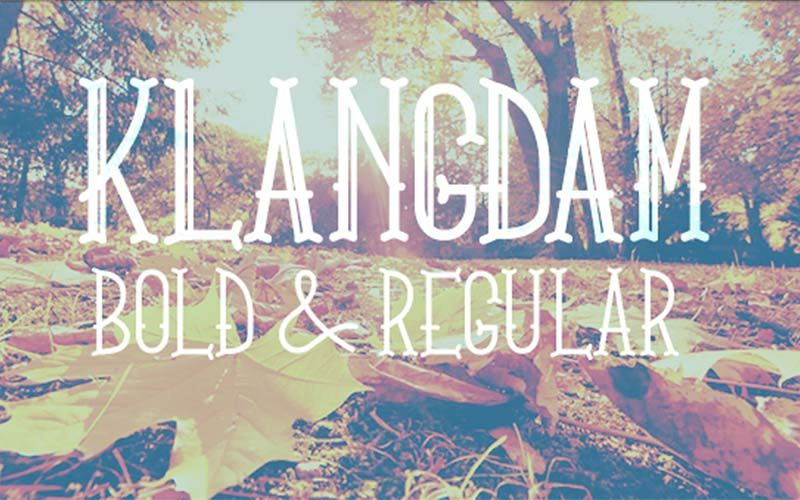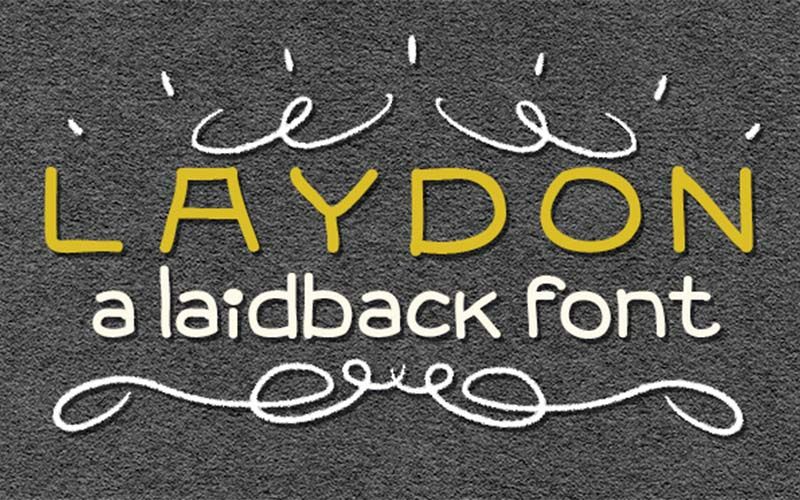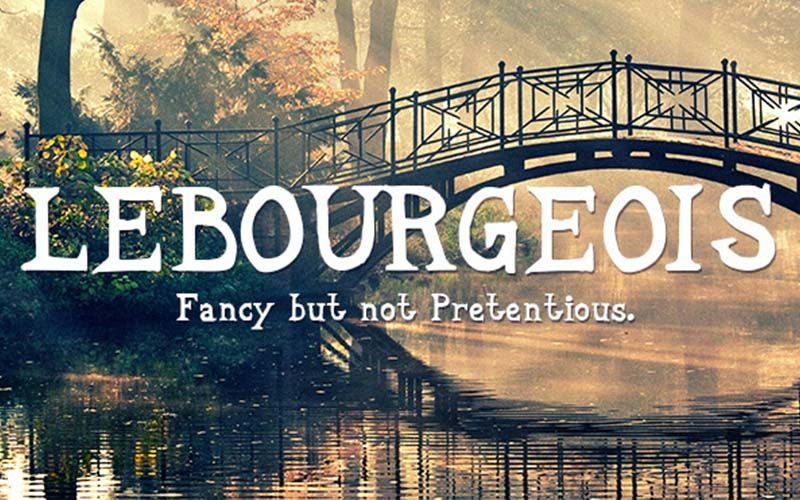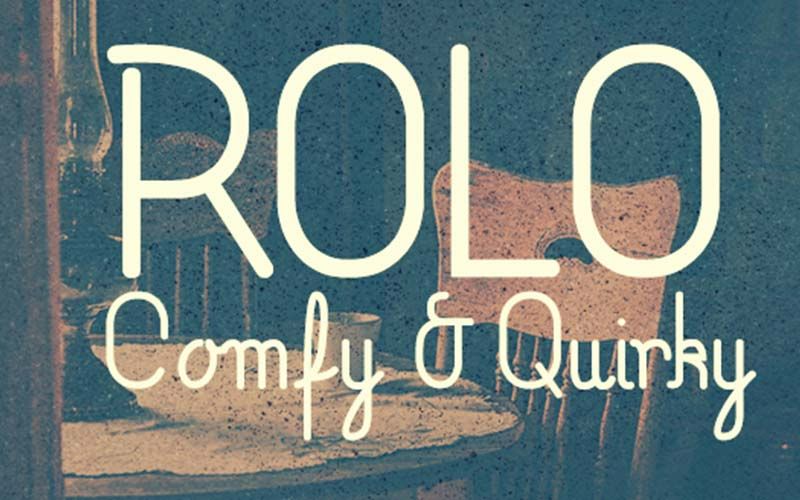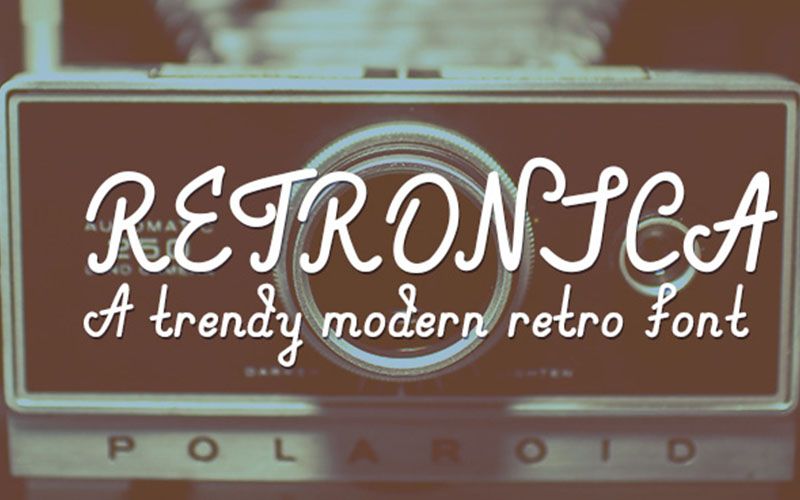
Beautiful Opentype Fonts Bundle
Add A Dash Of Glamor!
It gets boring when text appears repeatedly in the same font. That is why this Bestseller Bundle contains a collection of 26 enigmatic fonts.
Use these to add a dash of glamor and pizzazz to your designs. Whether it is Barberino, Adrastia, Amara, Aria, or Arpeggio font, you will love them all. There’s also Augustino, Bernice, Carlo Marlo, Classy Pirate, and Cupcake fonts available.
Additional options include Curlee, Dervish, Doodley Extended Version, and Eggplant fonts too.
Several of these come in multiple styles offered as distinct items. Ultimately, you will find yourself completely spoilt for choice! Combine these with the right choice of overlays and graphics for stunning results. Sure, the options are mind boggling but keep experimenting.
The more you do, the less time and effort it will take. Moreover, your final designs are bound to be appreciated by everyone!